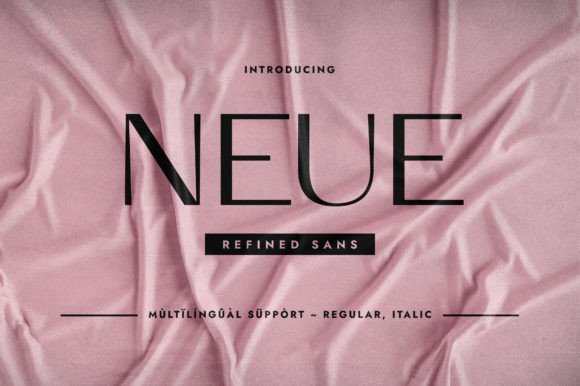
Neue Font: The Epitome of Sophistication and Style
Neue Font, a meticulously crafted sans serif typeface, beckons you to a world of refined elegance and timeless beauty. Its clean lines, delicate curves, and perfectly balanced proportions exude an air of sophistication that commands attention.
Journey into the realm of creative possibilities with Neue Font, where your designs take center stage. Adorn your packaging designs with its refined charm, elevate your cosmetics branding with its chic allure, and infuse your fashion and jewelry creations with a touch of timeless elegance. Let Neue Font's versatile nature guide you as you craft posters and marketing materials that speak volumes, leaving a lasting impression on your audience.
With Neue Font, you hold the key to unlocking a world of design brilliance. Its intuitive nature and effortless flow make it a joy to use, allowing your creativity to flourish and your ideas to take flight. Experience the transformative power of Neue Font as it seamlessly blends with your designs, enhancing them with a touch of sophistication and leaving a lasting impression.
Embark on a creative adventure with Neue Font, where your designs take center stage and your artistic vision knows no bounds. Let its refined beauty captivate your audience, leaving them mesmerized by the elegance and poise that radiates from every letterform. Unleash the power of Neue Font today and witness the transformation of your designs into works of art.